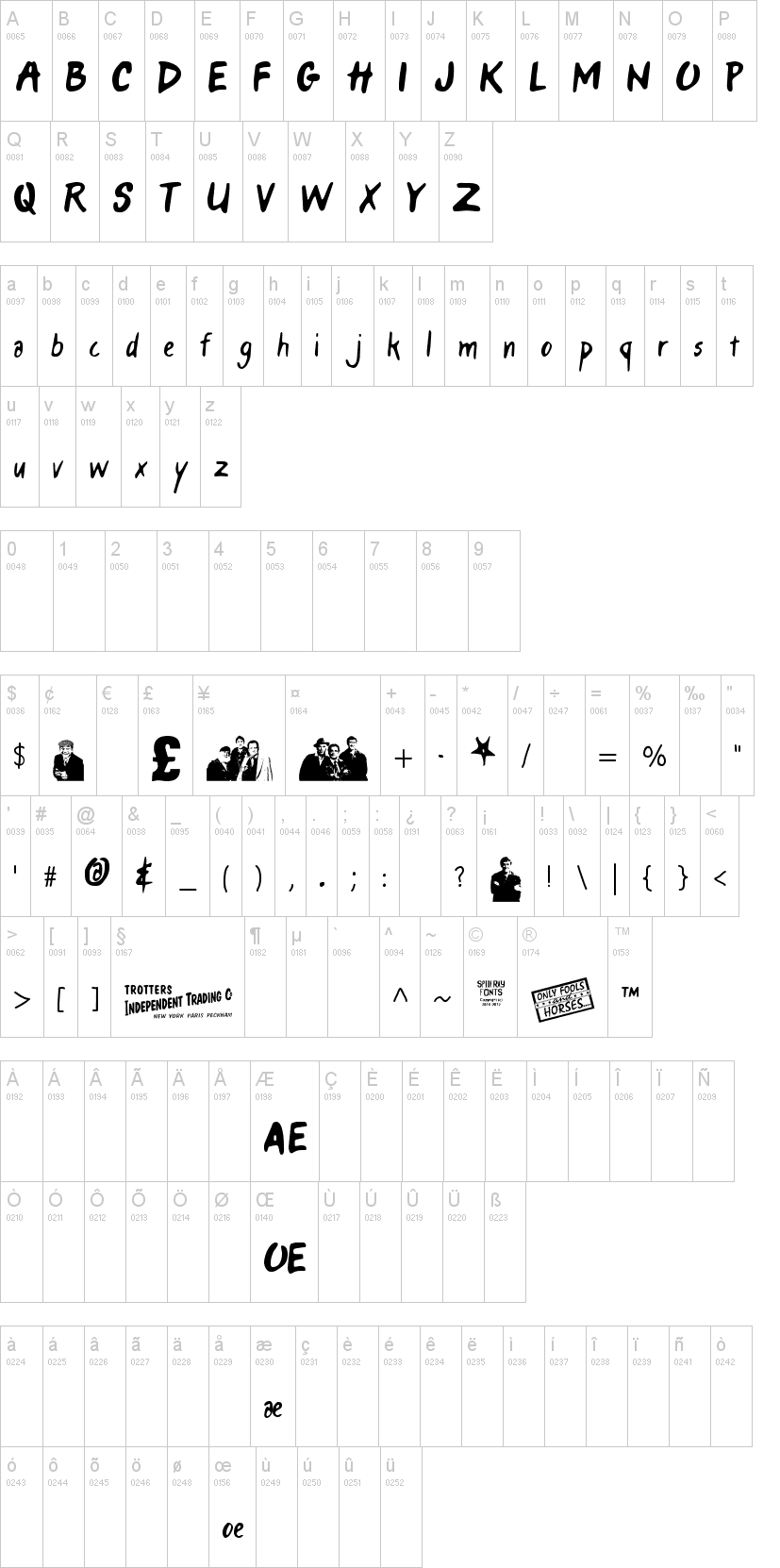
Only Fools & Horses
Created to pay homage to the excellent BBC series ONLY FOOLS and HORSES..... font based on the 1982 title sequence with the peeling labels. Need I say any more !